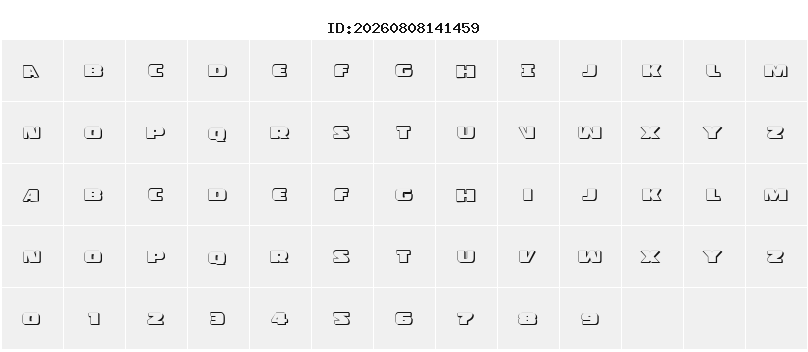
• Font Name: Police Cruiser 3D
Police Cruiser 3D.ttf is a modern, elegant sans-serif font designed for ultimate readability and visual harmony. Perfect for branding, headlines, web design, and print materials.